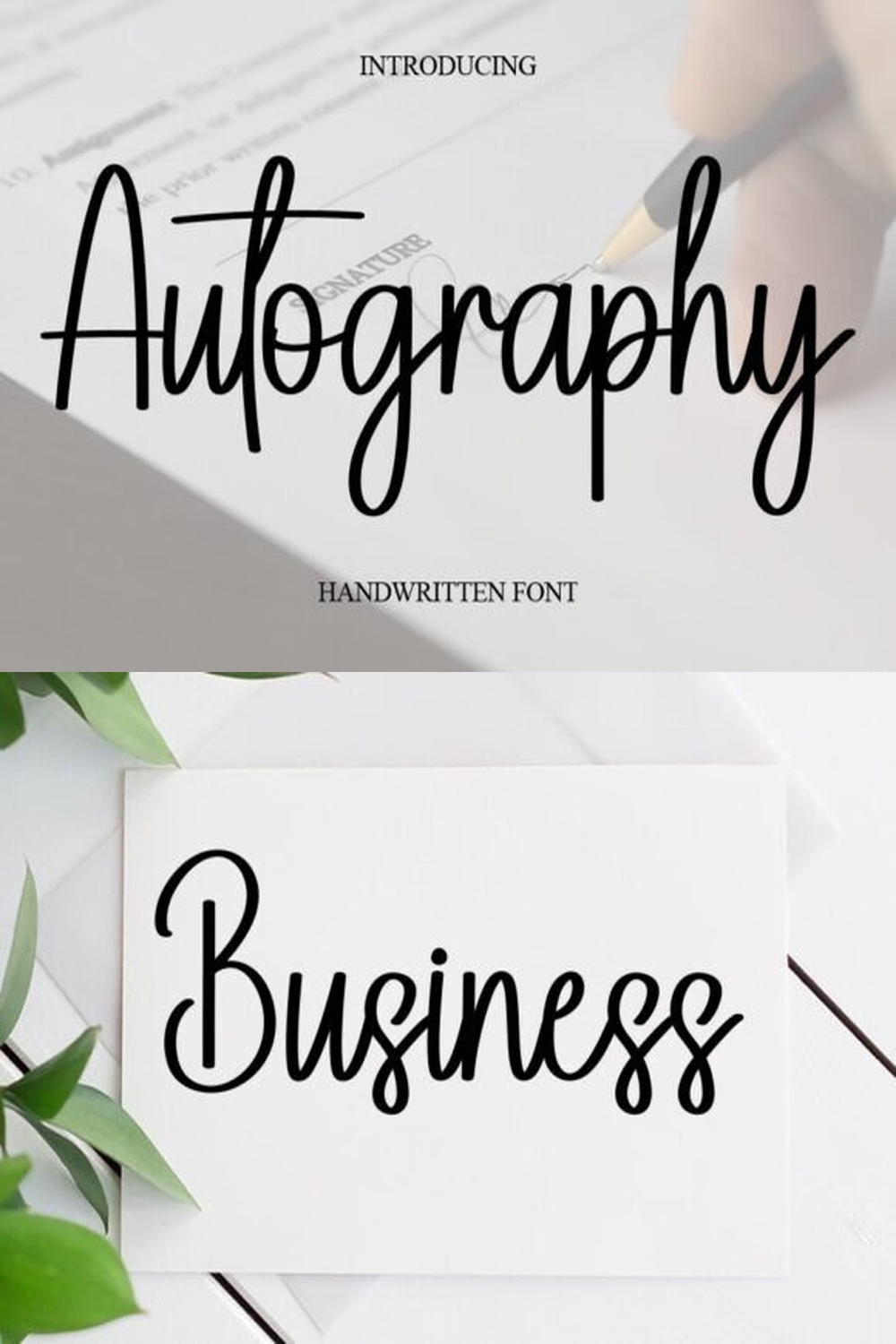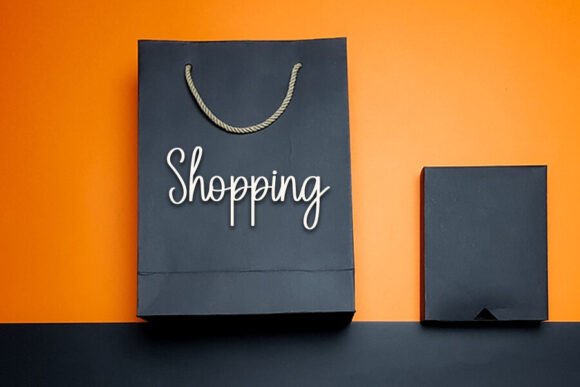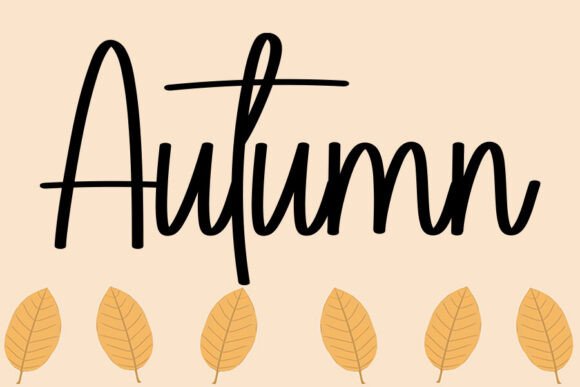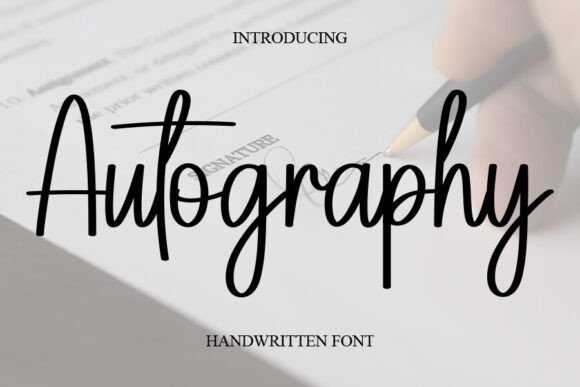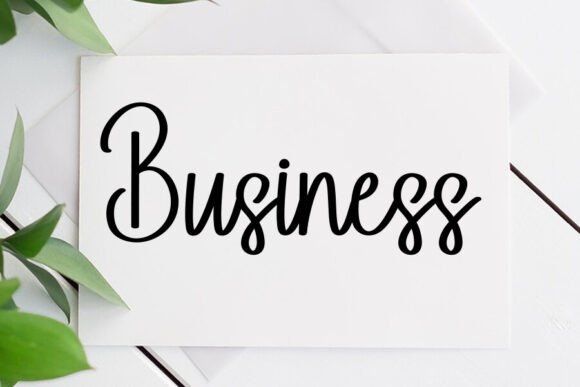
Autography Font: Elegant Script for Wedding & Logo Design
About the Autography Font
Elevate your designs with Autography Font, a font that combines sophistication with readability. Autography is a sweet and cursive handwritten font. This gentle font will look gorgeous on a variety of design ideas. It will add a joyful and romantic touch to each of your projects! Perfectly fit for branding, logo, wedding things, greeting cards, fashion, lookbook, marketing promotion, and any time you want your design to look fancy and elegant but still casual.
Autography Font Usage Examples
Autography Font Example